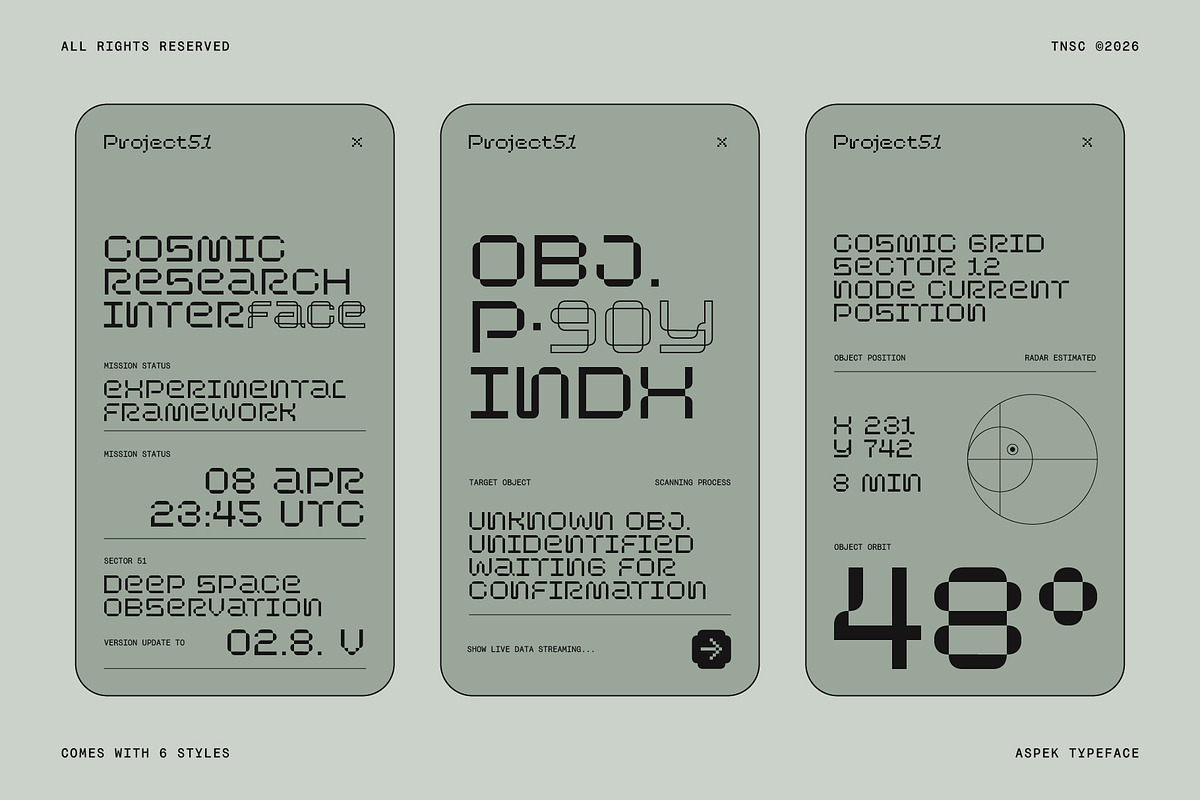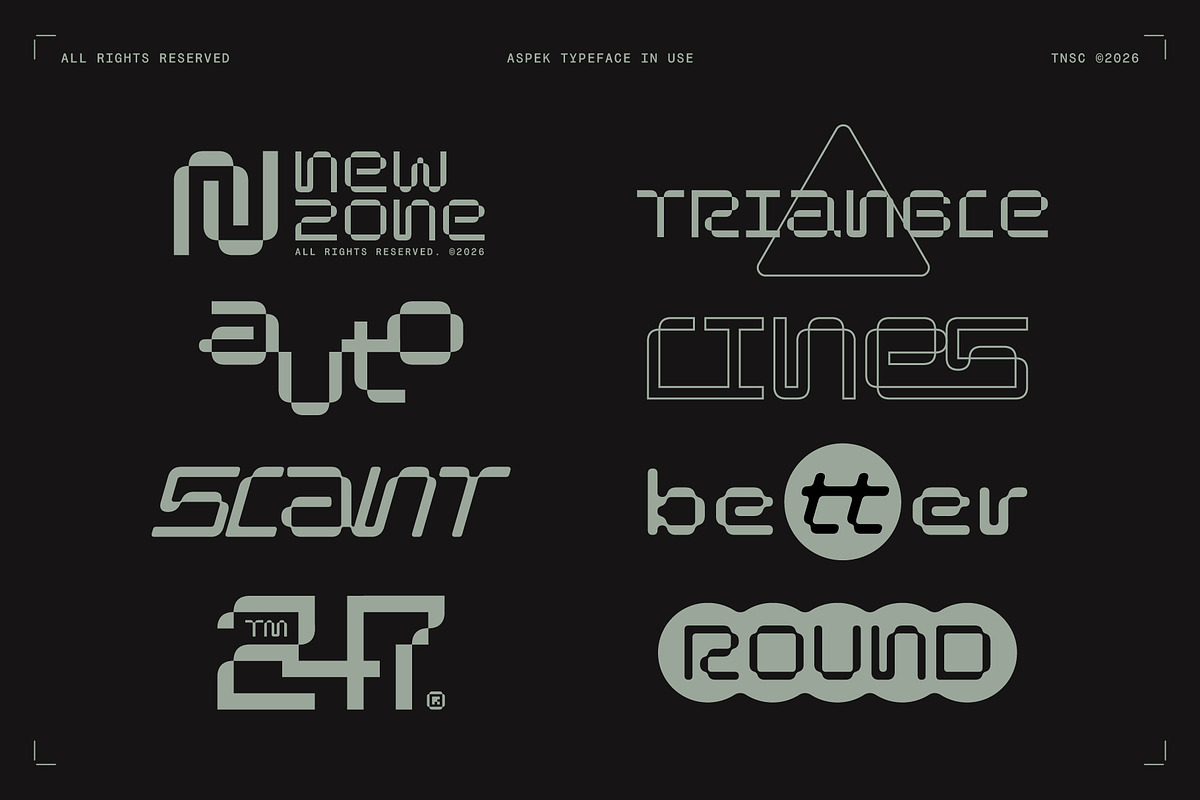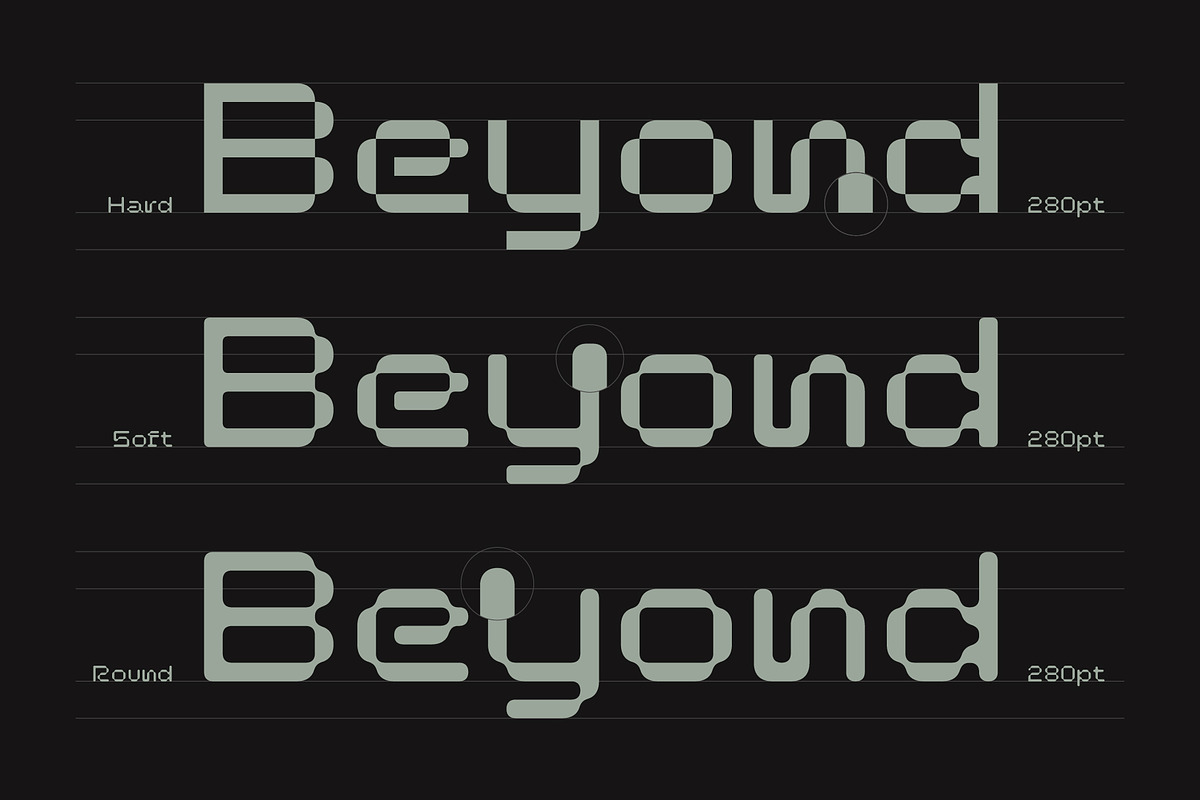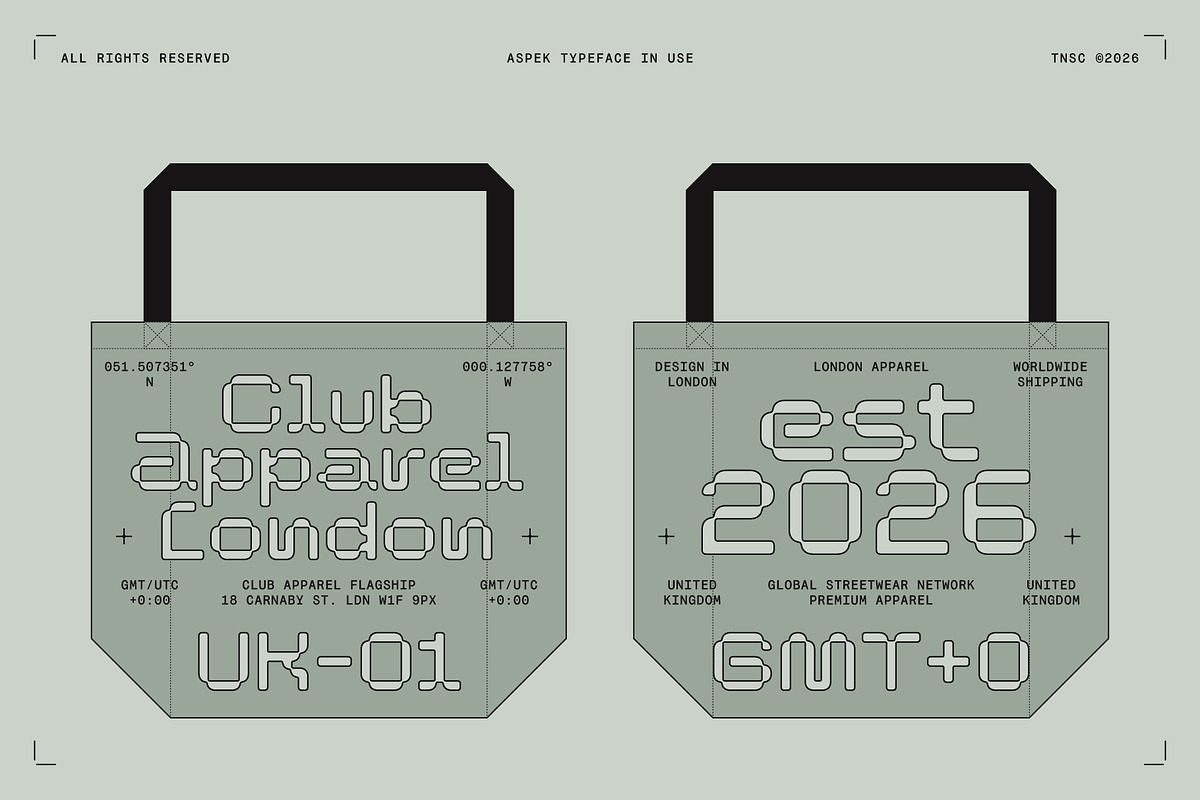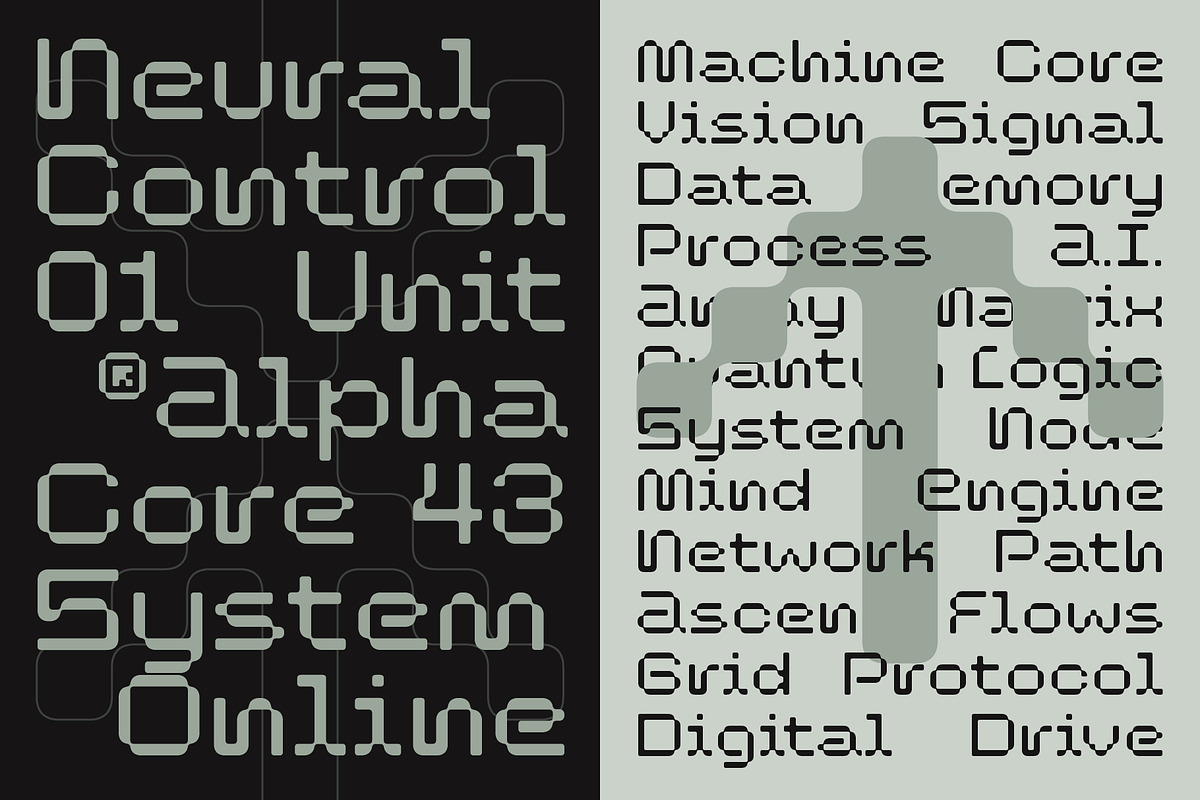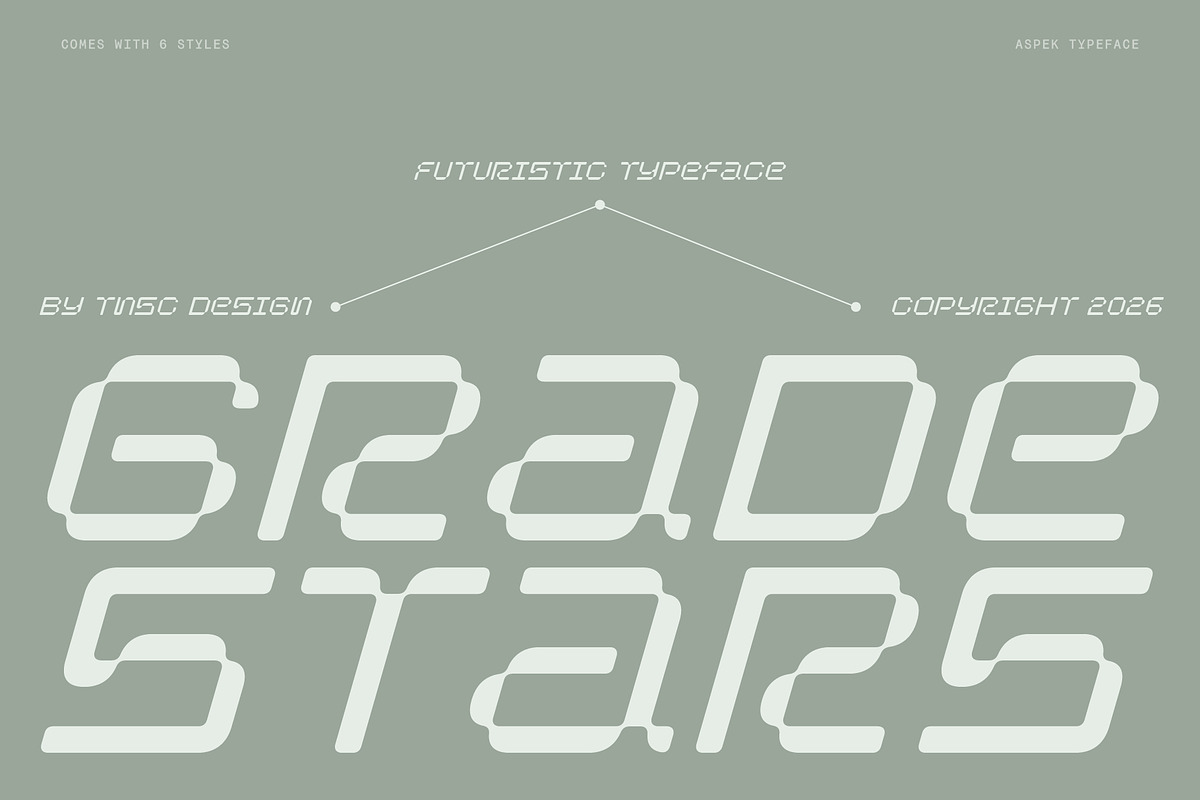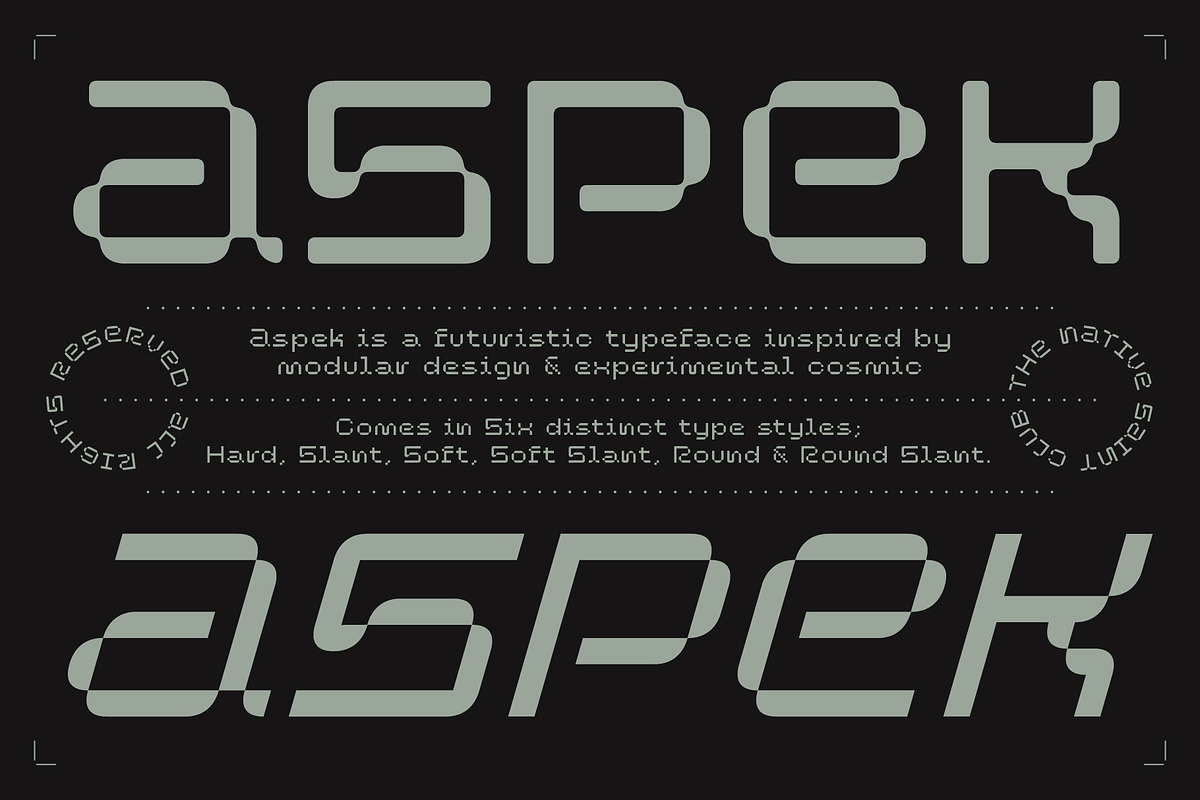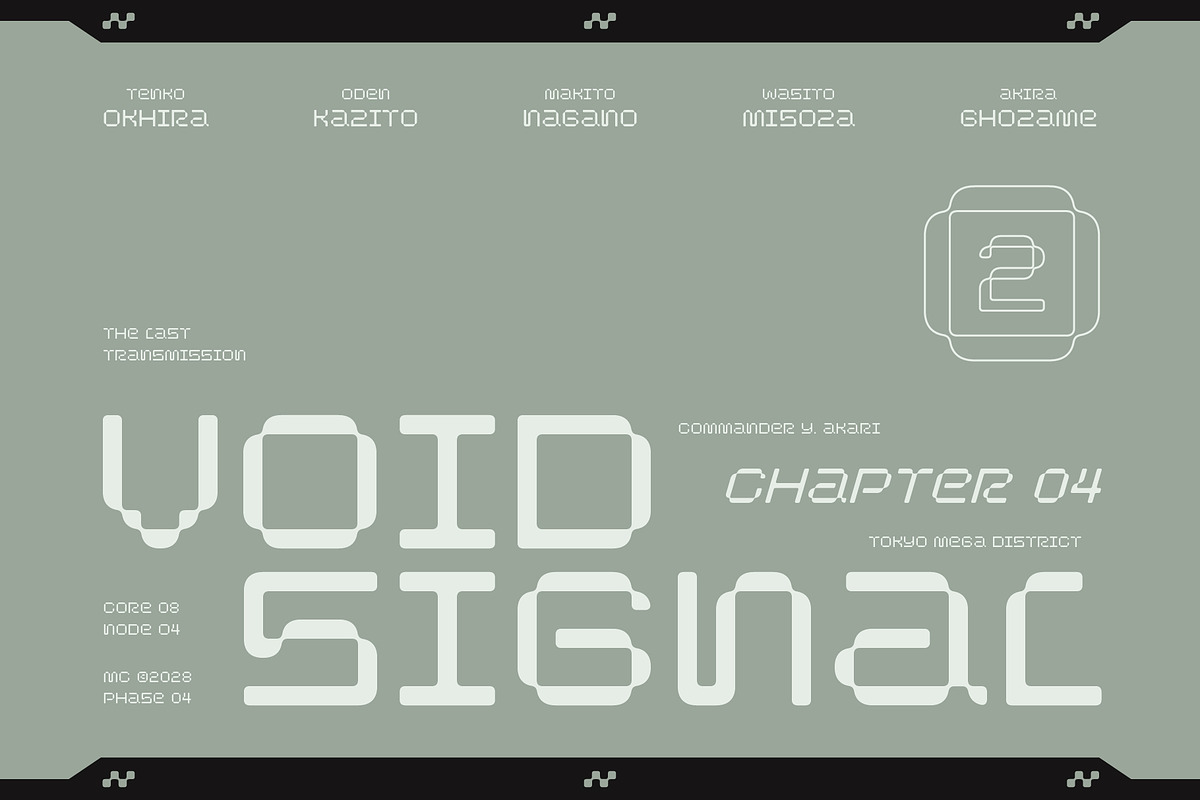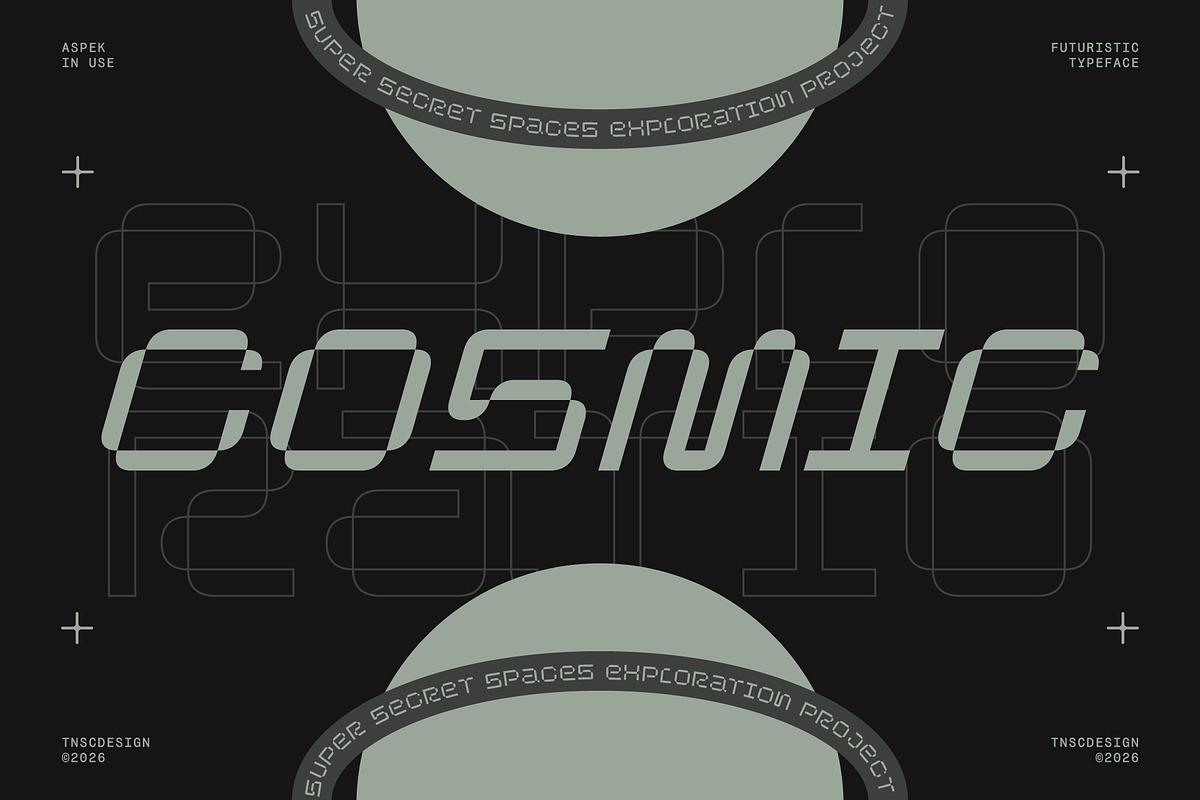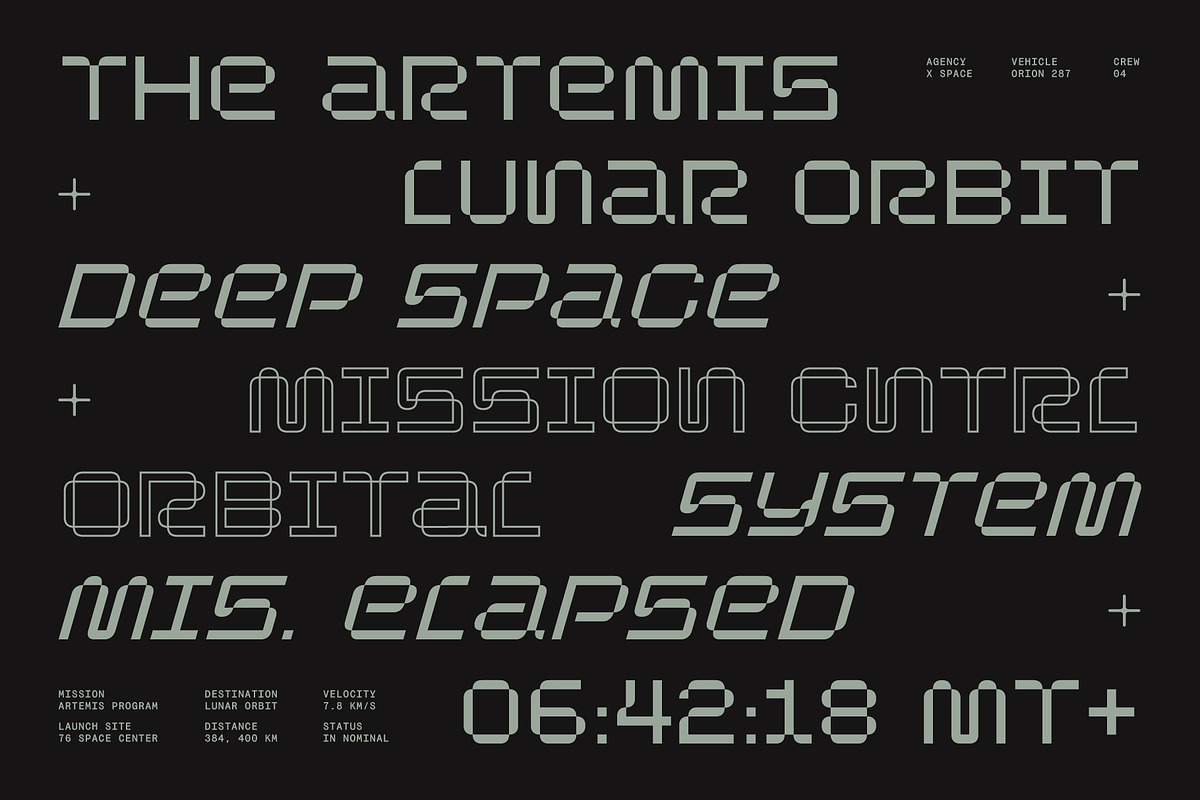
Aspek - Futuristic Display Sans
Aspek is a futuristic modular display typeface with a sharp, technological, and highly structured personality. Designed with geometric construction, distinctive cuts, and unconventional letterforms, this typeface creates a strong visual presence for projects that need to feel advanced, digital, and experimental.
Inspired by sci-fi interfaces, machine graphics, digital systems, robotics, and industrial design, it works especially well for tech branding, futuristic posters, AI visuals, games, editorial headlines, album covers, motion graphics, and digital interfaces. Its six different styles allow you to explore both rigid technical compositions and softer futuristic layouts while maintaining a consistent visual identity.
6 Styles (Hard, Slant, Soft, Soft Slant, Round, Round Slant)
Lowercase & Uppercase
Diacritics
Numerals
Punctuation & Symbols
Currency, Mathematics & Arrows